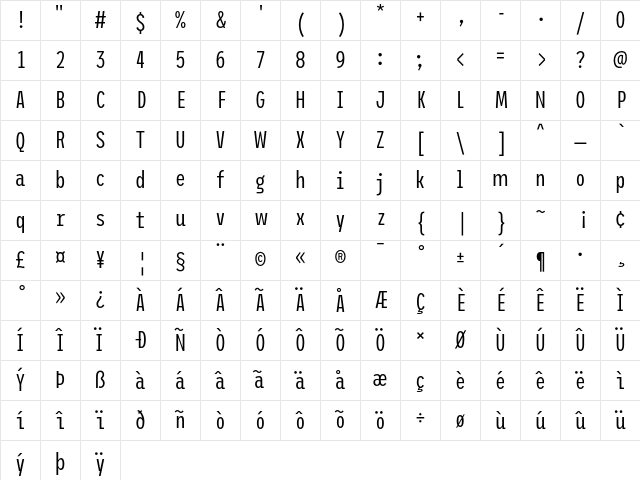
ETC Trispace Light Condensed
Style: Light Condensed
Foundry: Etcetera Type Company
Designer: Tyler Finck
Complete ETC Trispace Light Condensed glyph index. Displaying only characters natively supported by ETC Trispace Light Condensed font.
Design Context for ETC Trispace
ETC Trispace is a composed and adaptable typeface that performs quietly and consistently across a wide range of design contexts. Its slender proportions lend an understated elegance to any composition. Its narrow stance lets it pack a punch even in space-constrained designs.